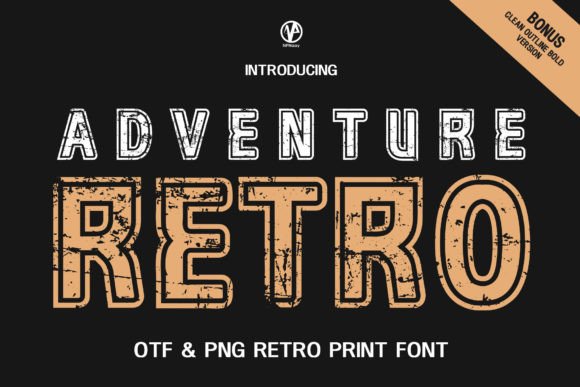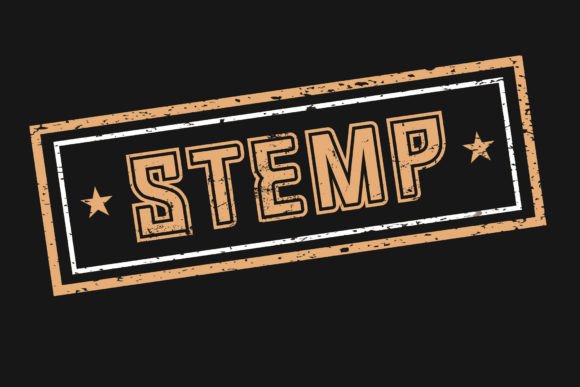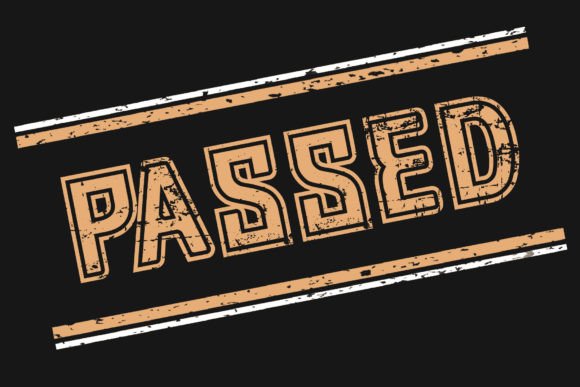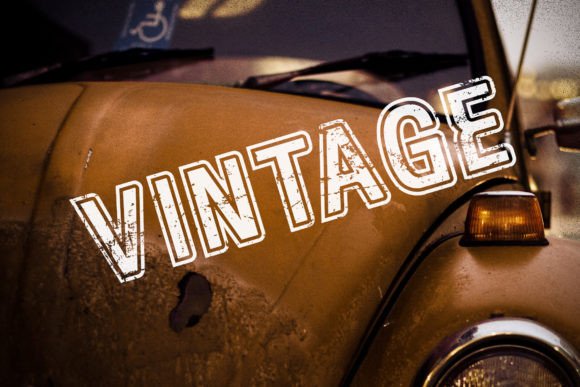
Adventure Retro Font
About the Adventure Retro Font
Step up your design game with Adventure Retro Font, a font that exudes confidence and style. Adventure Retro is a vintage and grunge-distressed display font that will brighten up each of your designs. Add it confidently to your projects, and you will love the results.
Adventure Retro thrives in headline applications, short taglines, and posters where its bold, vintage character can make a statement. It’s ideal for branding projects aiming for a retro, slightly rebellious feel, particularly in the areas of apparel, music, or entertainment. Avoid using it for body text or UI elements; its distressed texture and uneven letterforms compromise readability in longer passages.
This font pairs well with clean, geometric sans-serifs like Futura or Helvetica Neue for a striking contrast. For a softer balance, consider pairing it with a classic serif like Garamond or a more modern serif like Playfair Display. These pairings allow Adventure Retro to retain its visual impact while maintaining overall readability.
Its core personality is bold and nostalgic, conveying a sense of rugged adventure and retro cool. The distressed effect adds a layer of authenticity, suggesting a vintage, hand-crafted aesthetic.
Adventure Retro Font Usage Examples
Adventure Retro Font Example